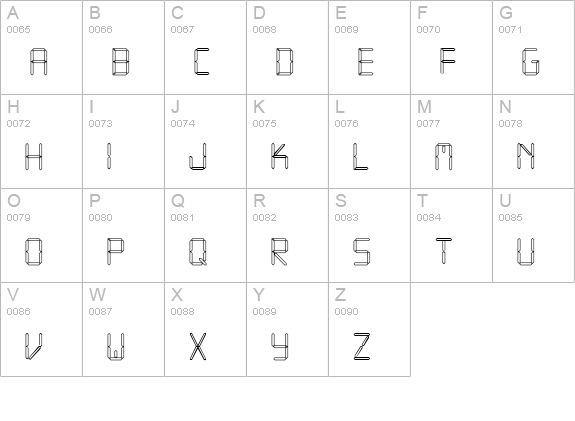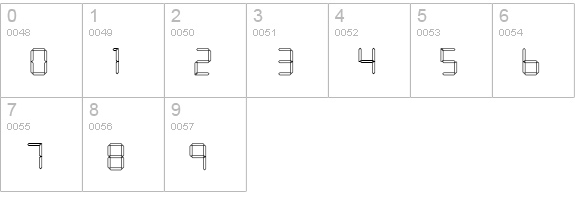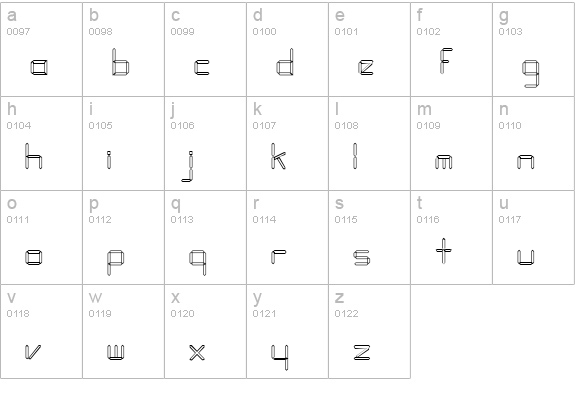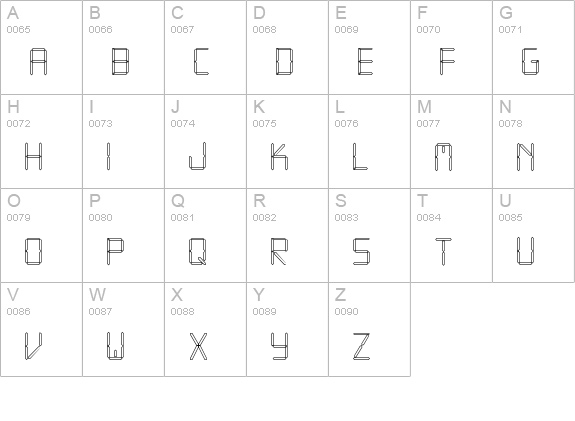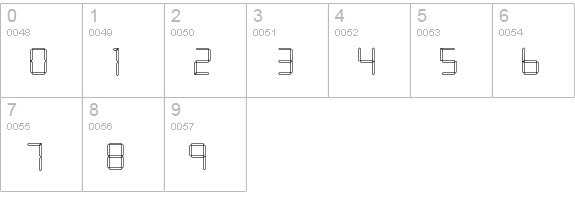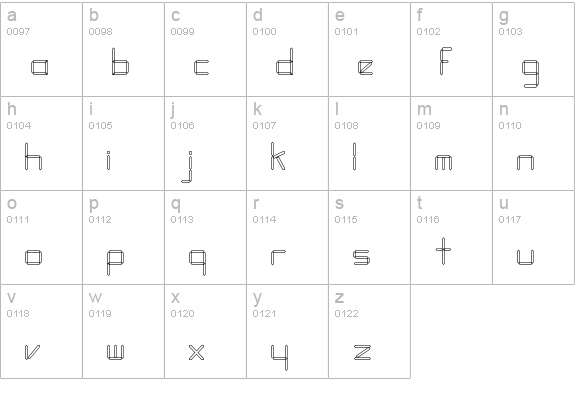
GeminiOpen Font Details
GeminiOpen is a modern and versatile font that exudes elegance and sophistication. With its clean lines and contemporary style, this typeface is perfect for various design projects, from branding to editorial design. The sleek and timeless look of GeminiOpen makes it suitable for both digital and print applications. One of the best things about GeminiOpen is that it is available for free download at FontsMarket.com. This means that you can easily access this high-quality font without any cost, making it a fantastic choice for designers looking to add a touch of class to their creations without breaking the bank. Whether you are working on a professional project or a personal one, GeminiOpen is sure to elevate your designs and leave a lasting impression. Download GeminiOpen today and unleash your creativity with this exceptional font.